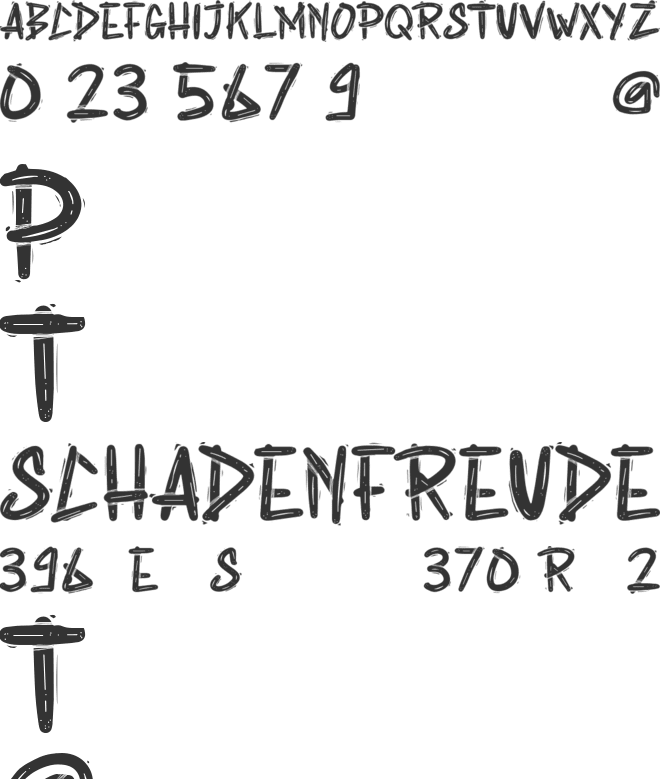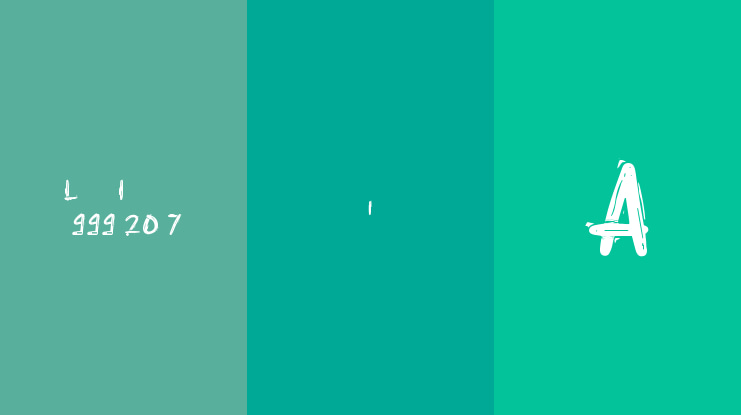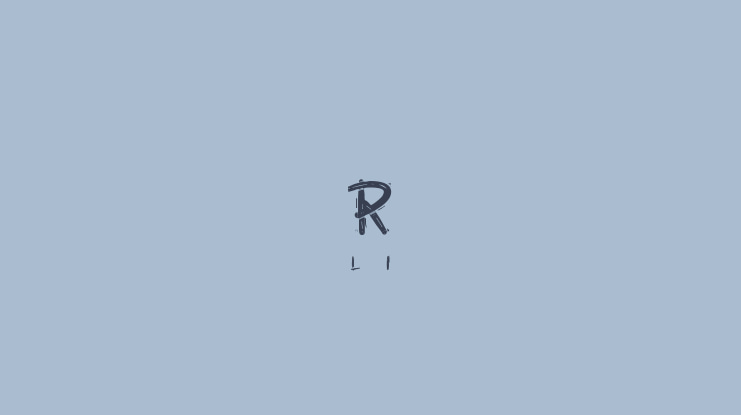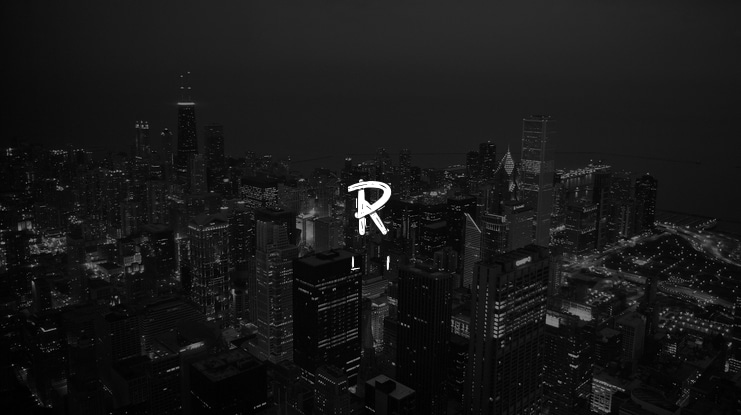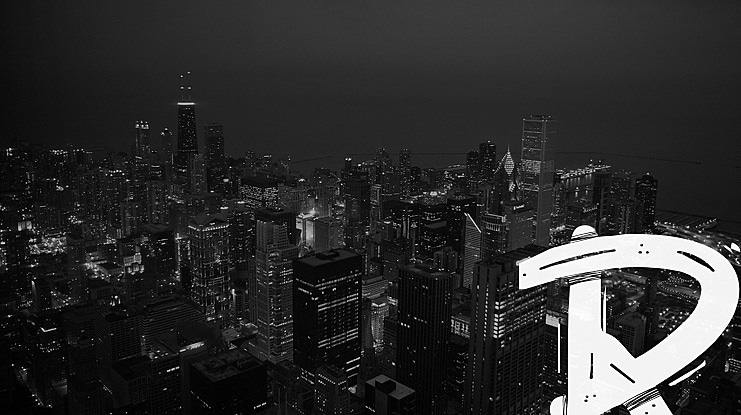
Rabsy Font
RABSY is a unique cartoon font with African concept. Available dingbat african pattern makes it easy for you to make african patterns, and make fun display tittle.!!
A mixed-case font ( Rabsy Font and Rabsy Pattern ) with lots of combination possibilities, make greats fun display! its good to make a logotype, sticker, fun kids sign, and other lettering project. This fun is perfect combination uppercase and lowercase.